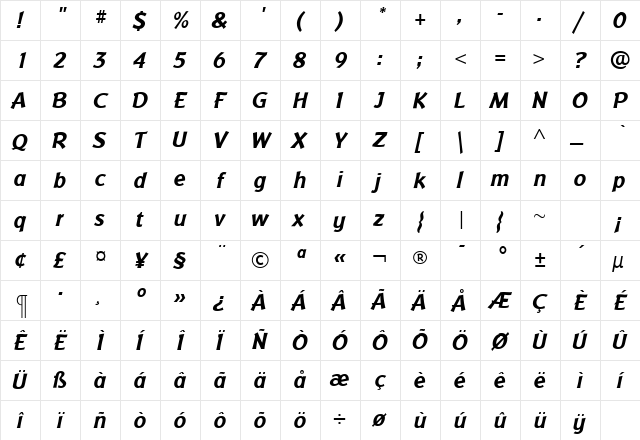
BadgerBoldItalic Roman Free Font
BadgerBoldItalic Roman
Design Context for BadgerBoldItalic
BadgerBoldItalic is a composed and adaptable typeface that performs quietly and consistently across a wide range of design contexts. The slanted form adds forward momentum and visual energy. Its bold stroke weight gives it real presence on the page.
Pro Tip: Use BadgerBoldItalic for emphasis, pull quotes, and subheadings where its slanted energy can add rhythm to the layout.